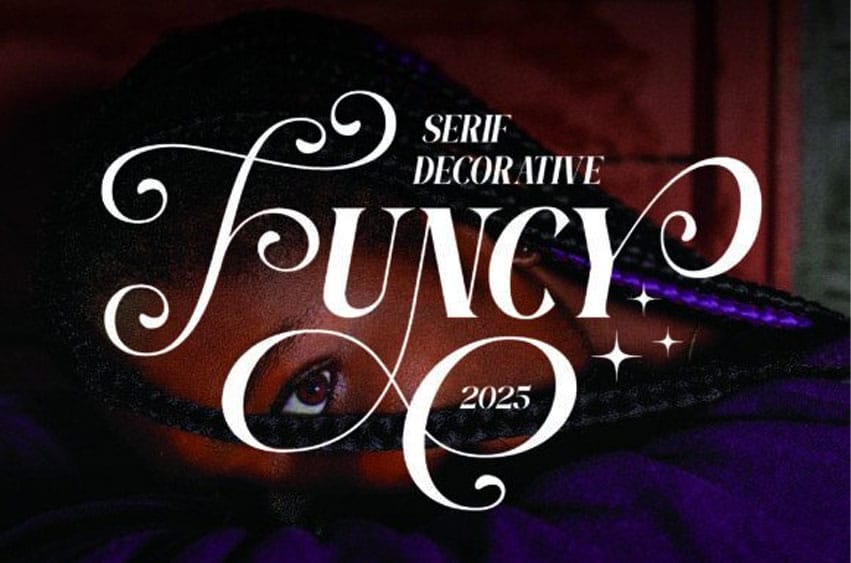
Funcy Font is a sophisticated decorative serif font designed to bring charm, elegance, and personality to your creative projects.
With its graceful swashes, ornamental details, and bold letterforms, FUNCY perfectly blends classic beauty with modern refinement. This typeface is ideal for creating standout headlines, branding, packaging, invitations, logos, or signage that needs a touch of decorative flair.